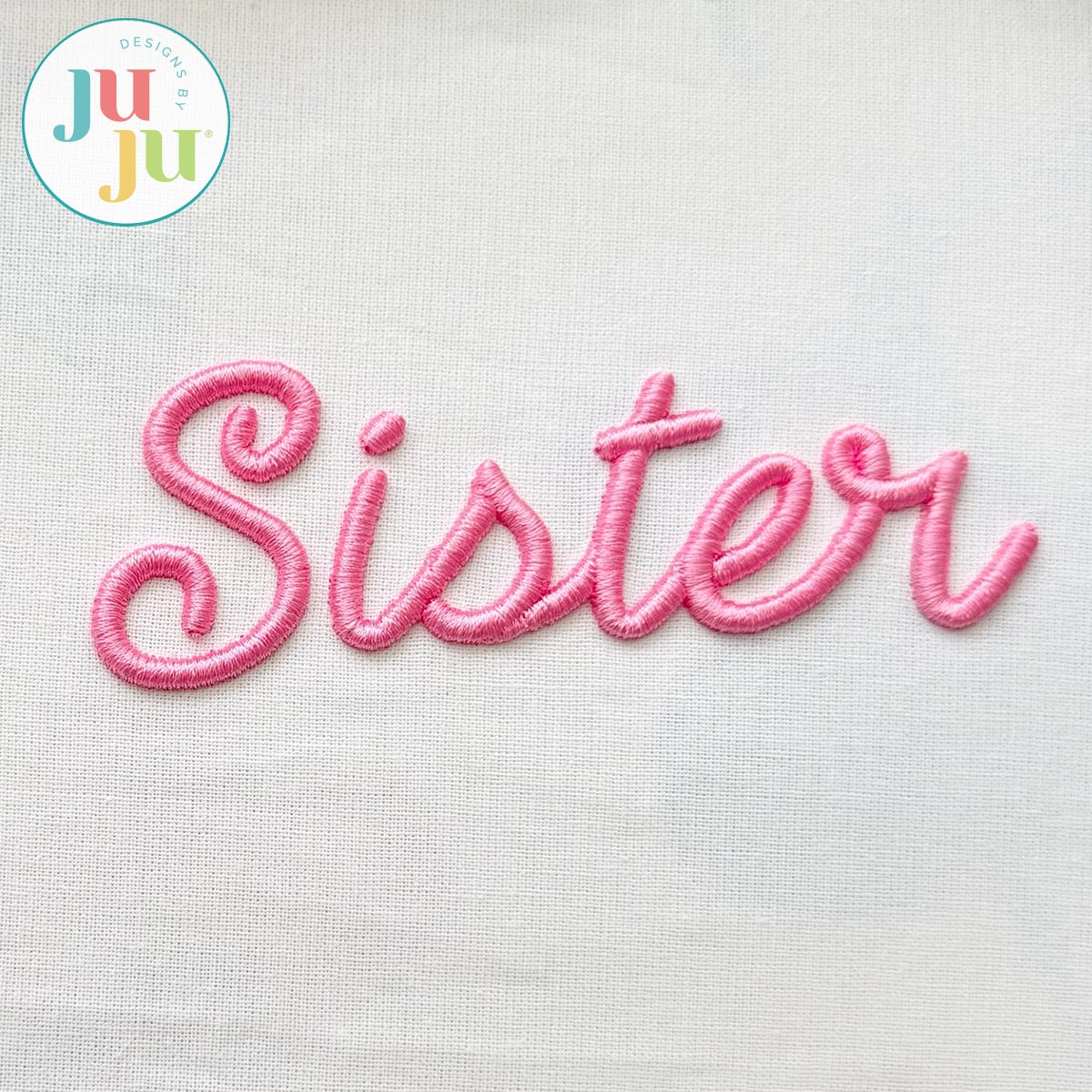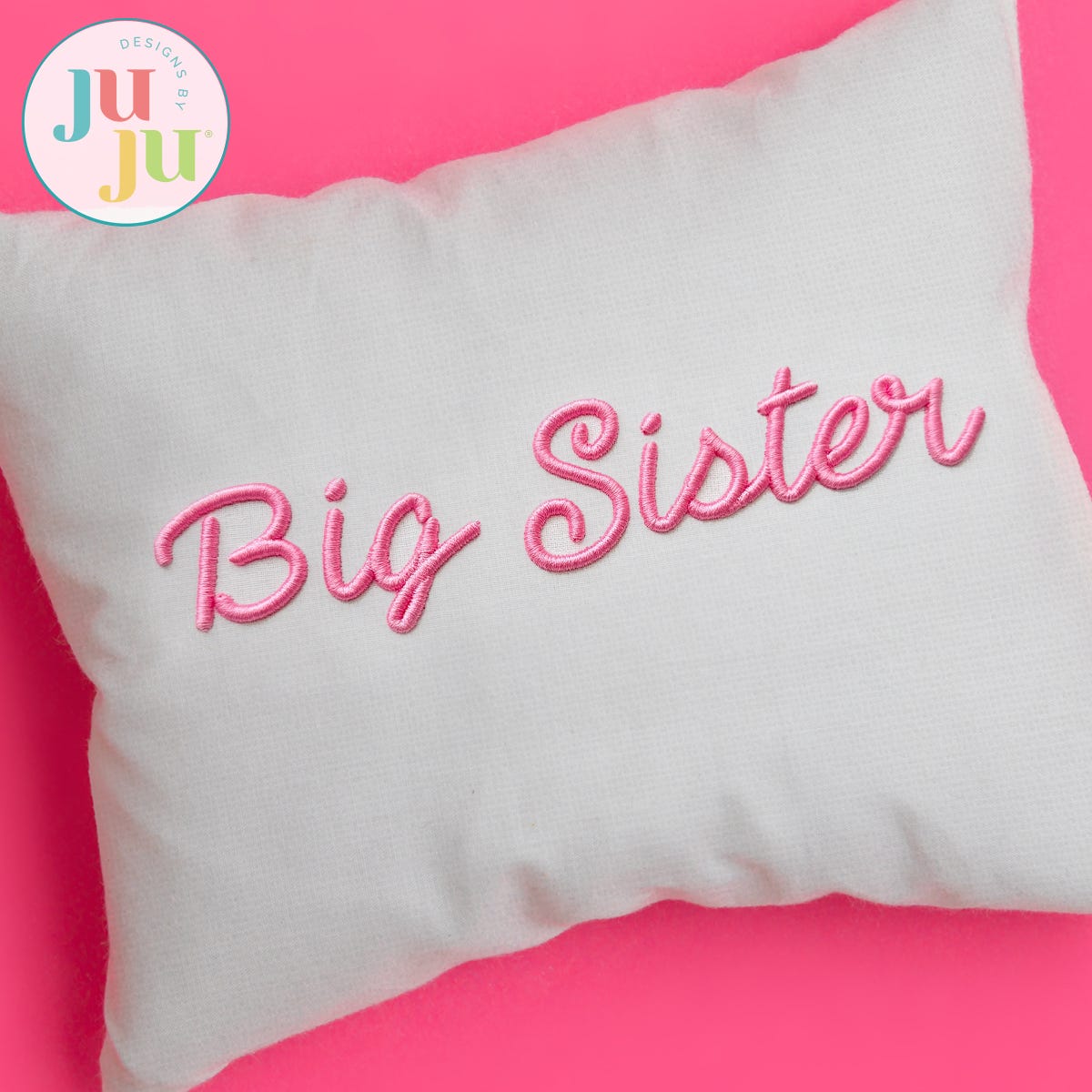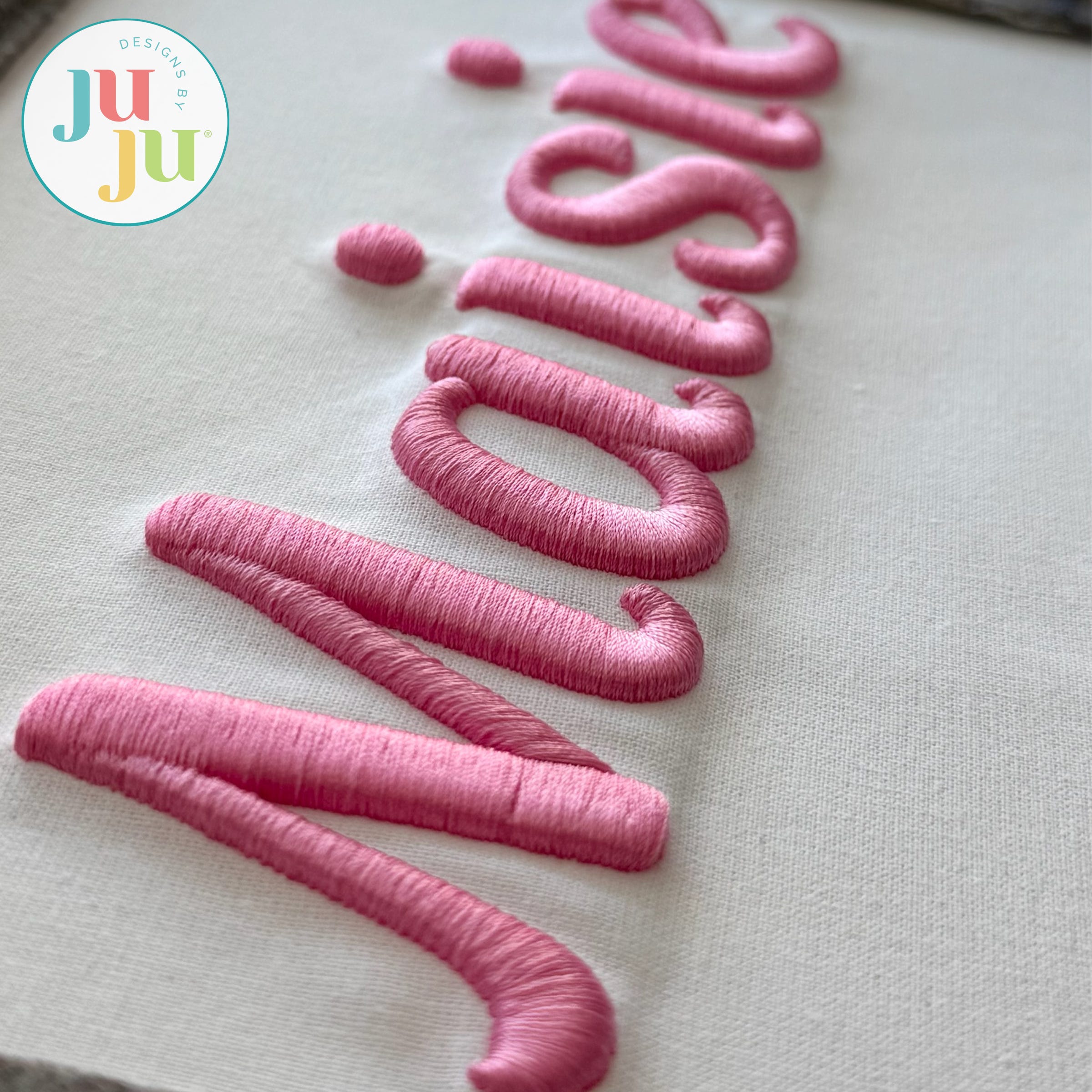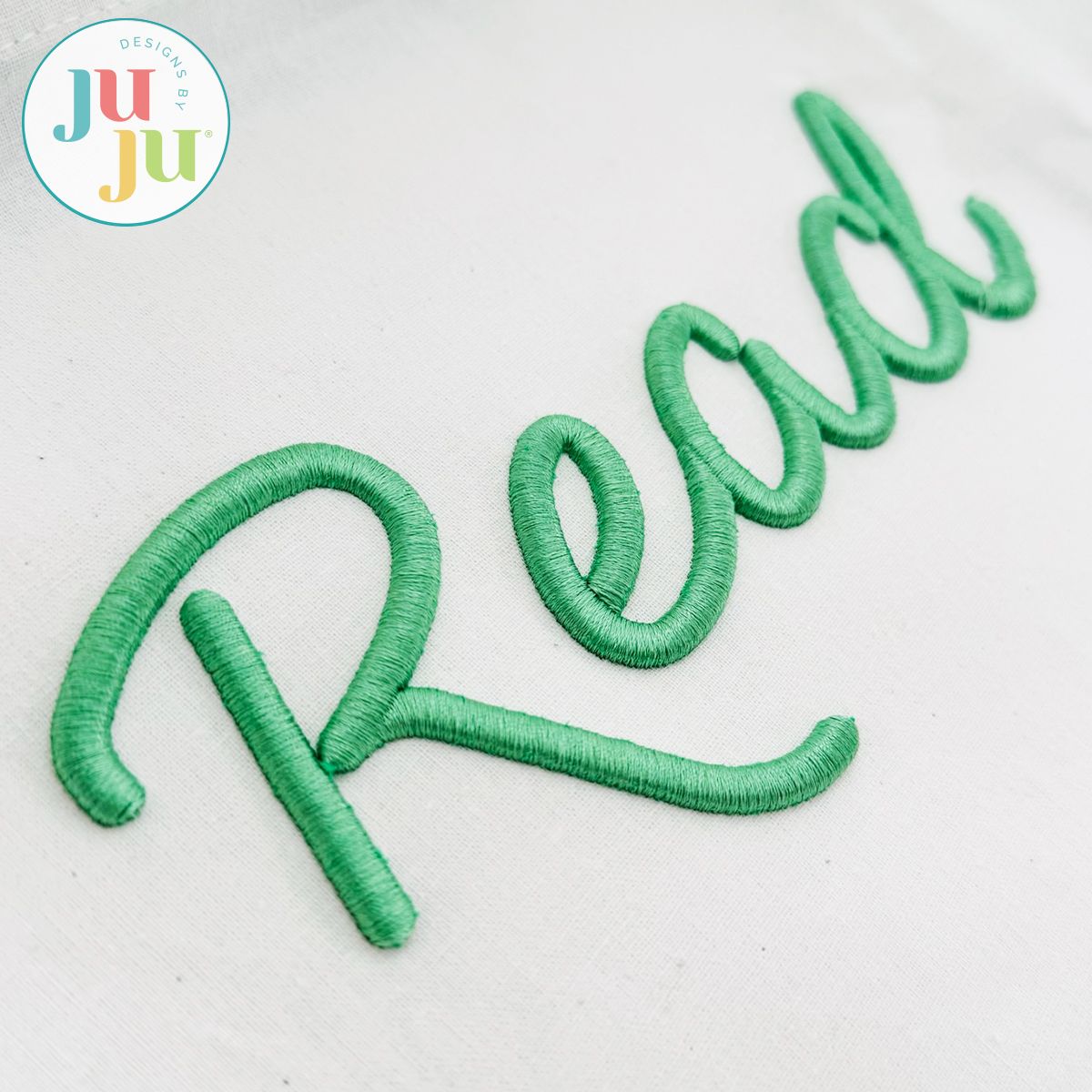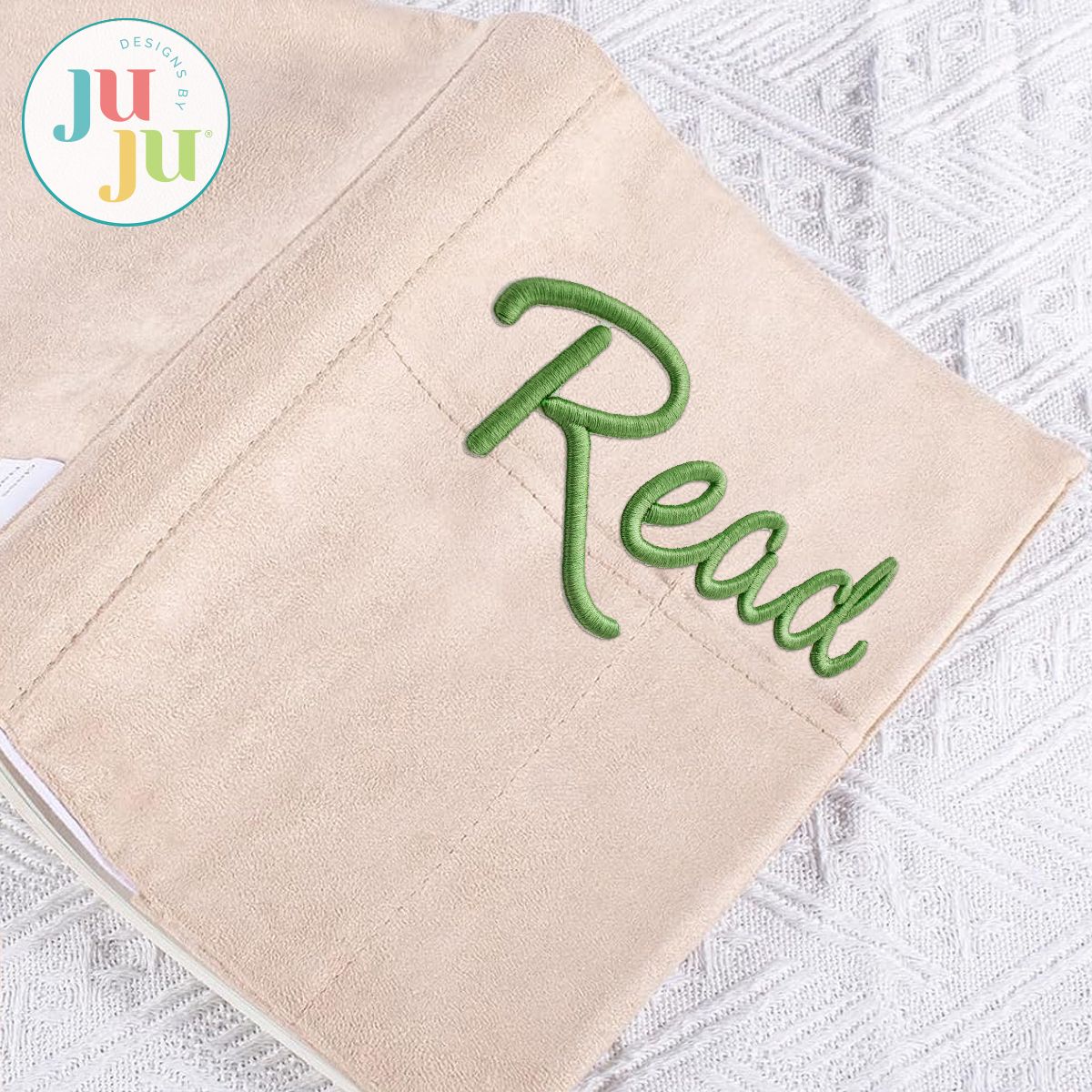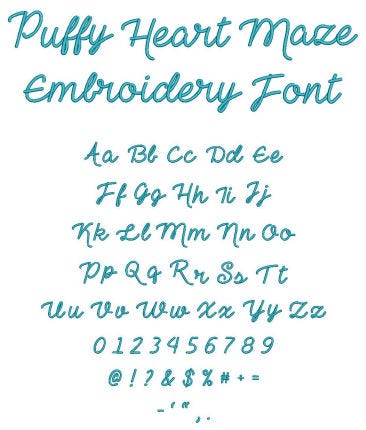
Puffy Heart Maze Satin Stitch Embroidery Font
Bring stylish dimension to your embroidery projects with this specialized puffy foam embroidery font, designed to create stunning 3D effects! Perfect for hats, jackets, bags, and other items where you want your designs to stand out with bold, raised lettering. We recommend using puffy foam designed for use with embroidery machines. Detailed instructions are included in the download so you can confidently add depth, style, and texture to your projects.